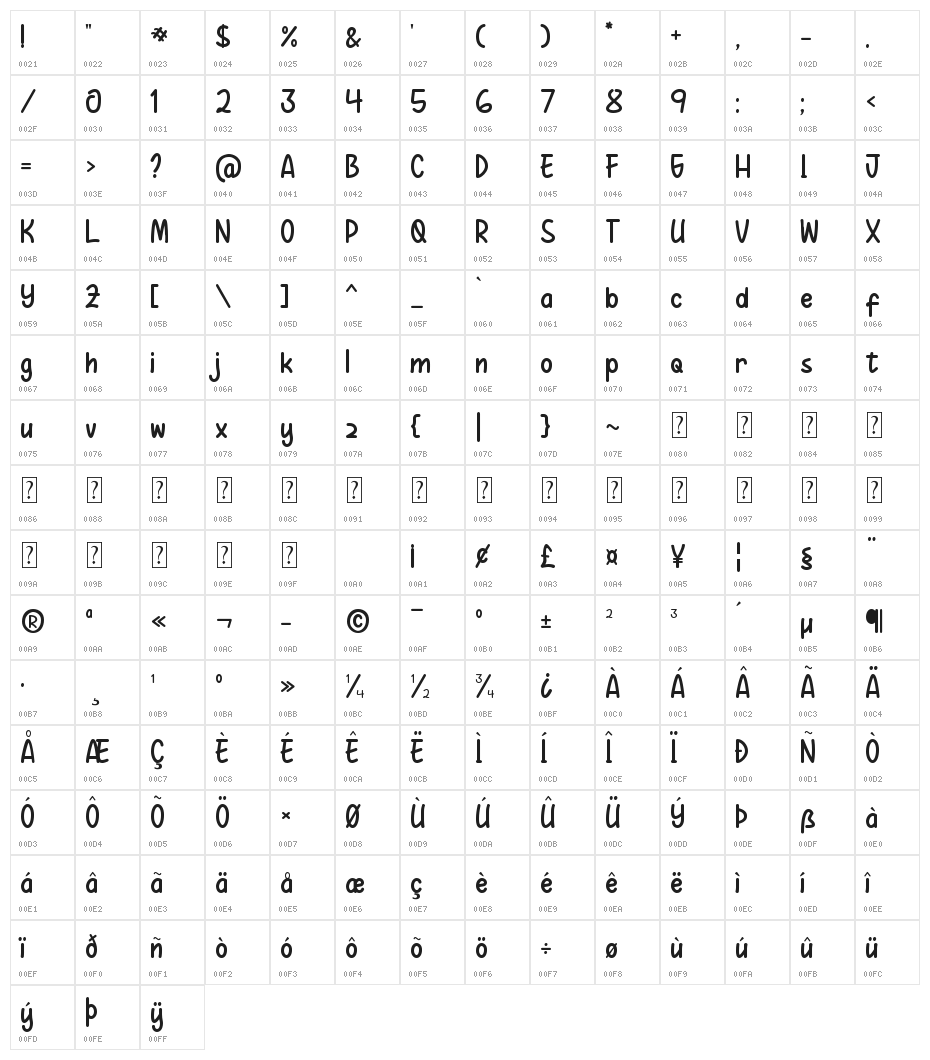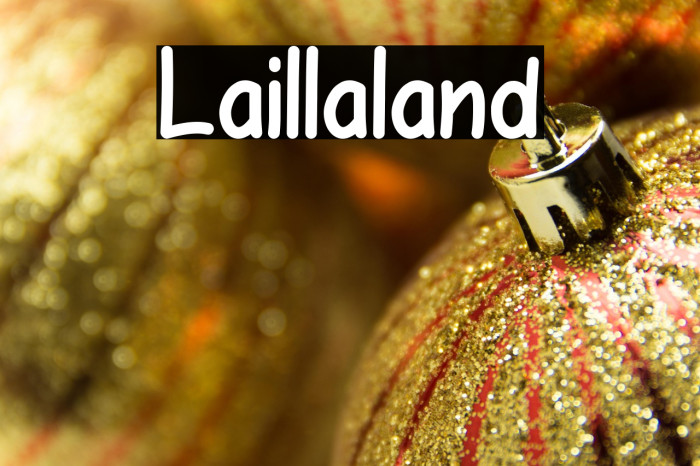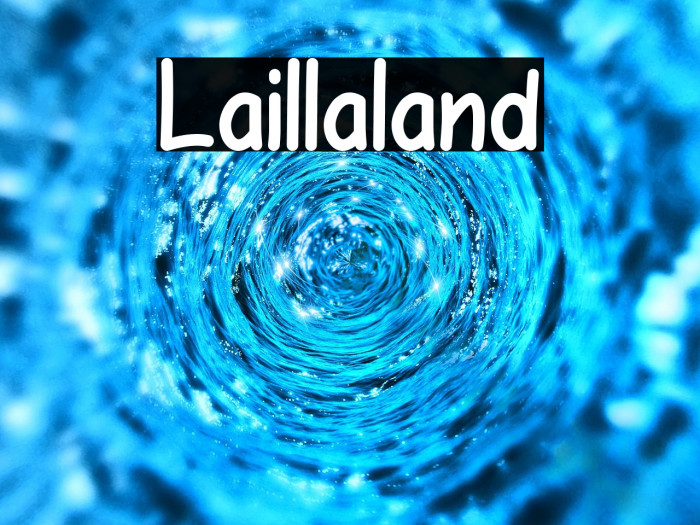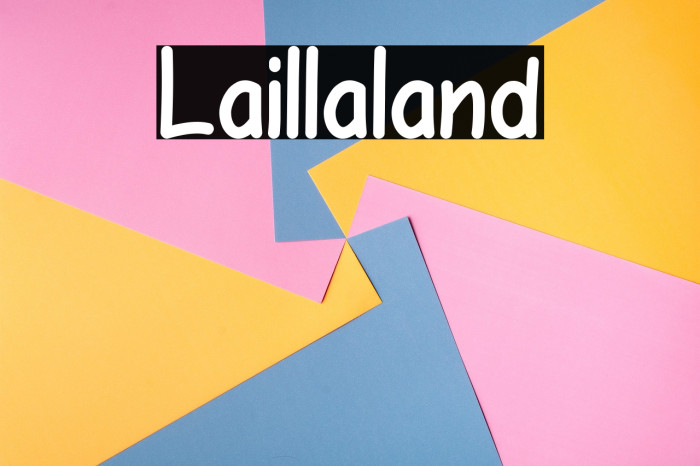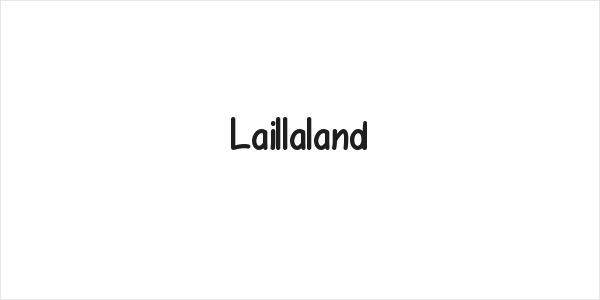
Laillaland Font
Laillaland Description
This playful and whimsical font features rounded, bold characters with a hand-drawn aesthetic. The letters are slightly irregular, giving them a friendly and approachable feel. The uppercase and lowercase letters maintain a consistent style, with smooth curves and a uniform stroke width. The numbers and special characters are designed to match the overall playful theme, making them ideal for creative projects. The font's unique style is perfect for adding a touch of fun and personality to any design.
| Proposed Projects | Ideal for children's books, playful branding, greeting cards, and creative posters. |